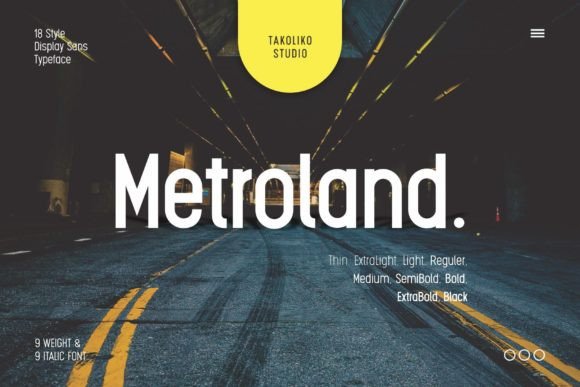
Embark on a visual odyssey with Metroland Font, the epitome of urban chic. This display font exudes a disarmingly casual charm, rendering it remarkably grounded, legible, and infinitely adaptable. Its unassuming demeanor belies an extraordinary versatility, allowing it to effortlessly shine in a kaleidoscope of contexts.
Picture Metroland Font as the commanding presence atop bustling backgrounds, its bold personality refusing to be overshadowed. In the realm of standalone headlines, it assumes the spotlight with grace, radiating an innate magnetism that compels attention.
Metroland Font's inherent versatility extends beyond mere aesthetics. Its pliable nature enables it to effortlessly conform to your creative vision, seamlessly harmonizing with a myriad of design concepts. Unleash your boundless imagination and forge captivating imagery that reflects your unique style and narrative.
Immerse yourself in the limitless possibilities of Metroland Font. With its urban-inspired allure, it effortlessly elevates sports-themed designs to new heights. Imagine team logos emblazoned with Metroland Font, their dynamism amplified by the font's energetic strokes.
Create posters that capture the essence of sporting events, with Metroland Font as the focal point, its bold presence lending an air of excitement and anticipation. Unleash a torrent of creativity with Metroland Font, letting its urban swagger infuse your designs with an irresistible charm.
Metroland Font is not merely a collection of characters; it's a gateway to a world of boundless creativity. It's the perfect companion for your sporting ventures, promising to transform your designs into captivating masterpieces. Don't let this opportunity pass you by. Embrace Metroland Font today and embark on a journey of visual excellence. Your designs deserve nothing less.